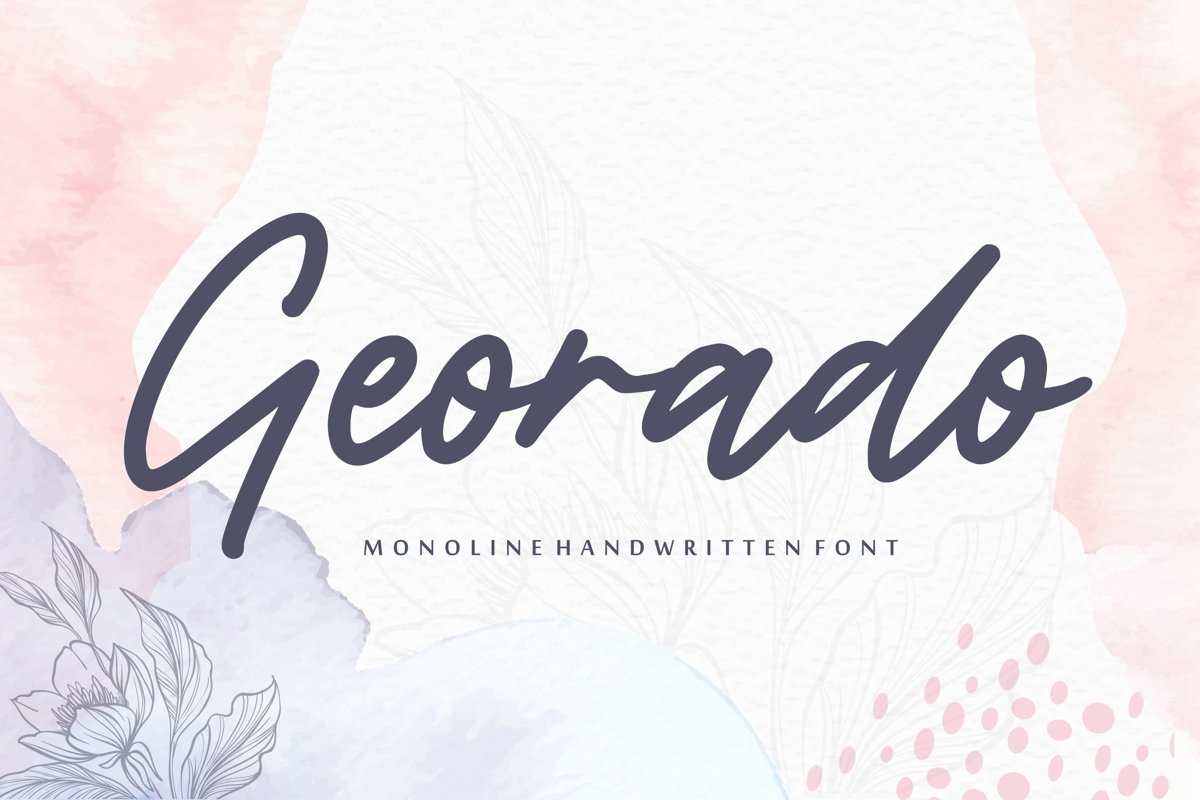
Proudly Present, Georado Font.
Georado is a Monoline Handwritten font.
Georado is perfect for product packaging, branding project, megazine, social media, wedding, or just used to express words above the background.